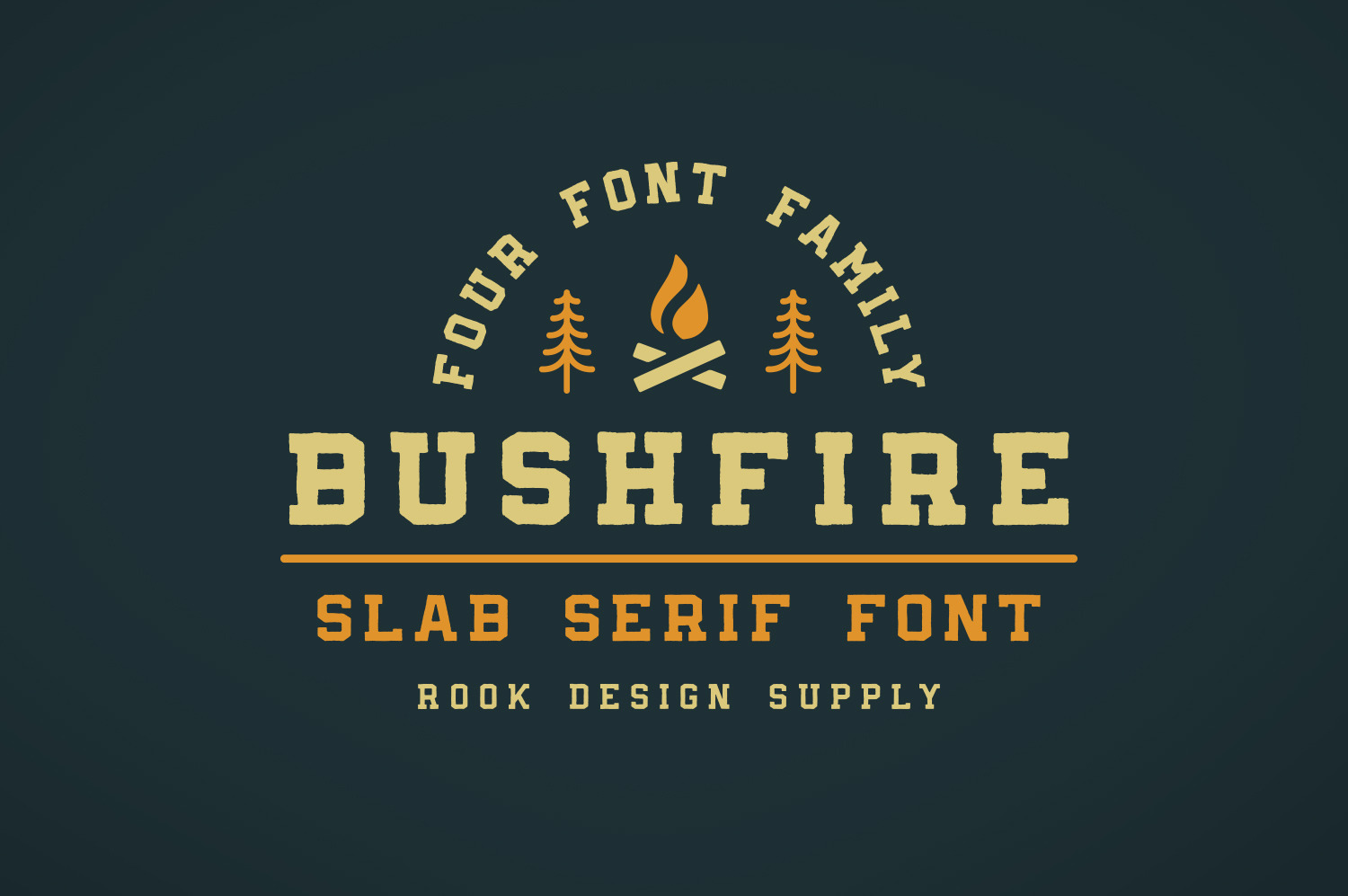
Bushfire - 4 Font Family
Bushfire is a family of FOUR slab serif fonts designed with your logos, branding, and quotes mind. Printing imperfections were added to the characters to give that old school handmade vibe. Bushfire is great for logos, branding and quotes.
Four fonts:
Bushfire - Regular
Bushfire - Condensed
Bushfire - Extra Condensed
Bushfire - Bold
Language Support - We've added in a great deal of extra characters to support many different languages.